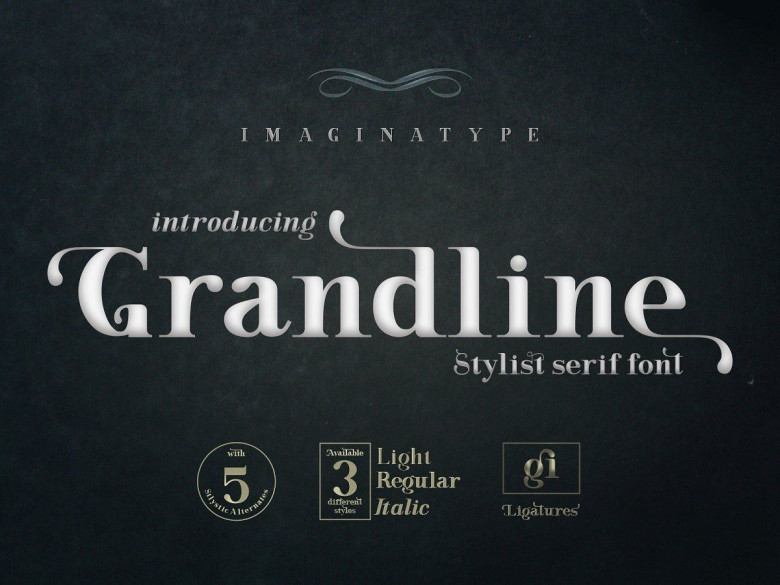
Grandline Stylist Serif Font
Introducing Grandline Font – A modern classy bold serif typeface. An elegant typeface with a bunch of alternates, and ligatures. Grandline is a display font inspired by retro curves style from the 50-60s era and brings it into modern design with bold weight.
Grandline is a versatile font that ready to make your designs more stand out such as posters, magazines, branding, logos, label, merchandise, presentation, advertising, cards, quotes and so much more!